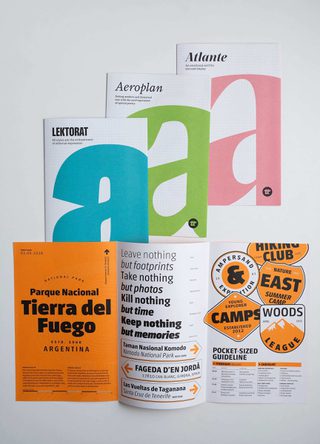
Chaco specimen
Celebrating the release of Rubén Fontana’s Chaco, this specimen showcases the family’s contemporary take on classic forms and its versatility across identity, branding, wayfinding, and immersive reading.